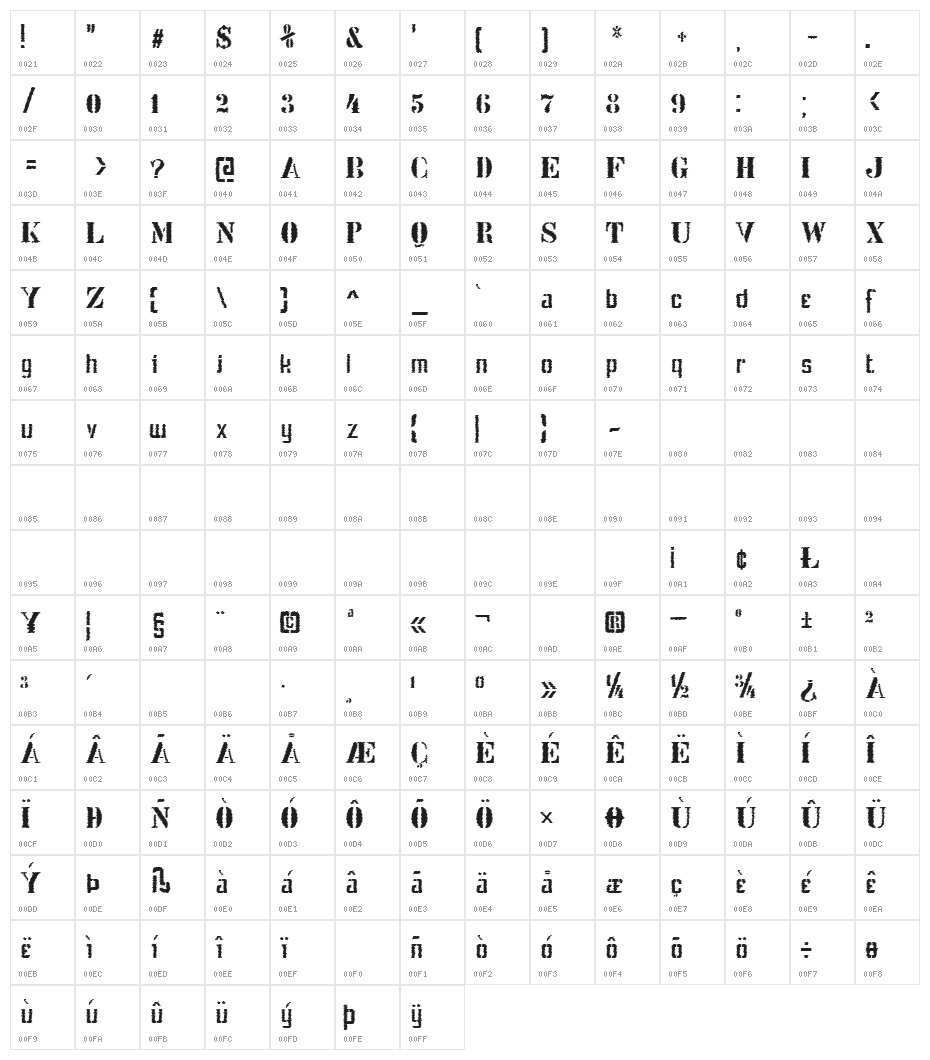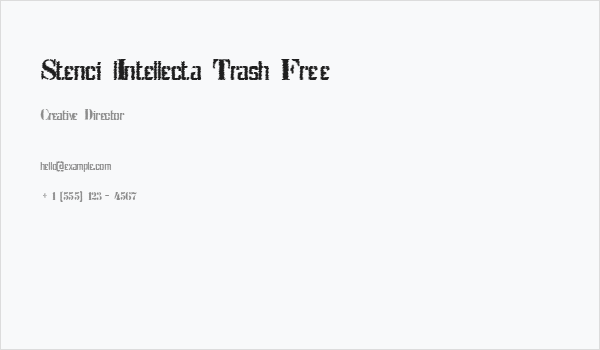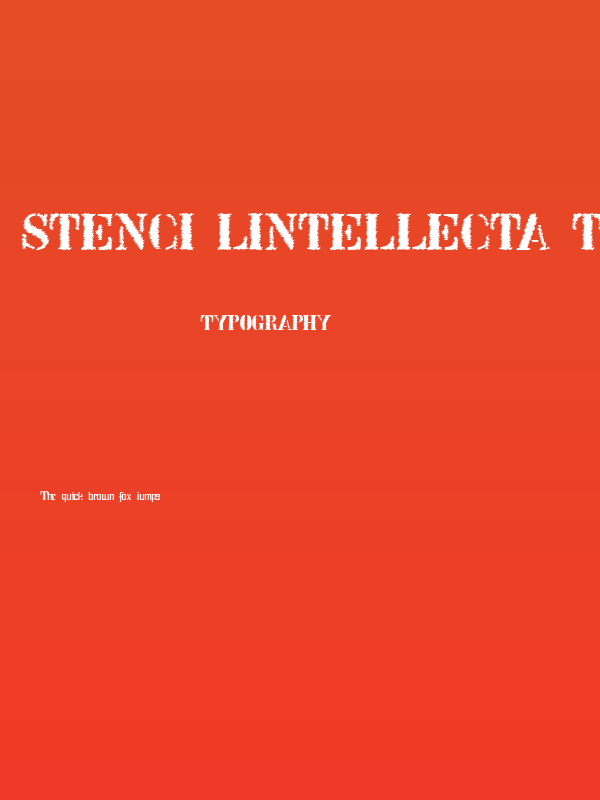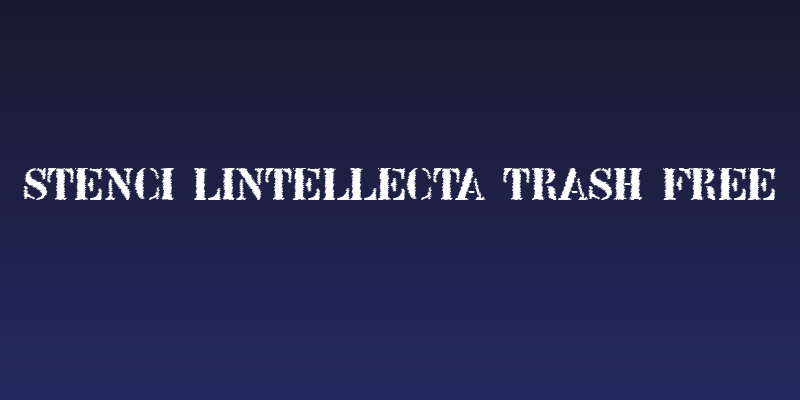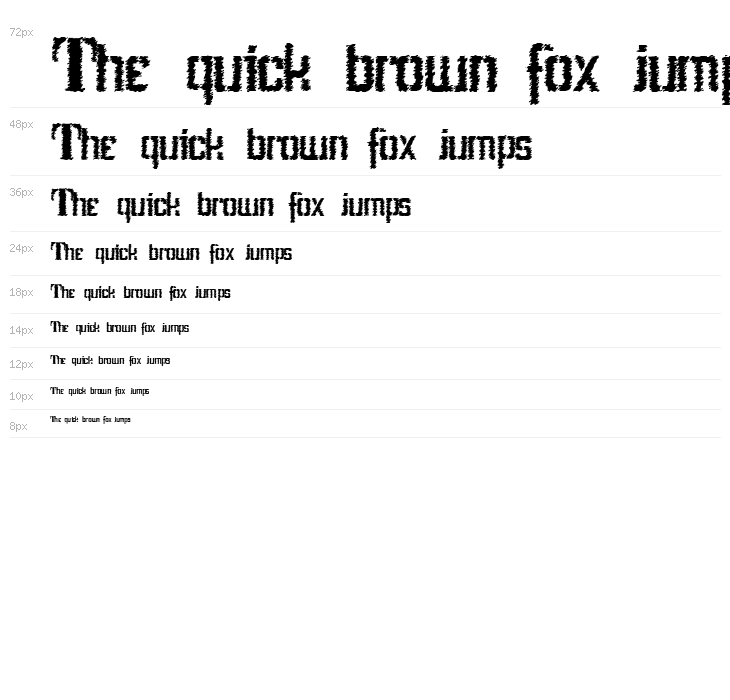
Stenci lIntellecta Trash Free Font
Stenci lIntellecta Trash Free Description
This font features a bold, stencil-like appearance with a distressed texture that gives it a rugged, industrial feel. The uppercase and lowercase letters maintain a consistent style, with sharp edges and a slightly uneven finish that adds character. The numerals and special characters follow the same design, ensuring uniformity across all elements. This font's unique style is reminiscent of urban street art or military stencils, making it stand out with its bold and impactful presence.
| Overall Style | Industrial, Urban, Rugged |
| Use Case | Headlines, Posters, Logos |
| Proposed Projects | Ideal for urban-themed designs, posters, album covers, or any project requiring a bold, gritty aesthetic. |